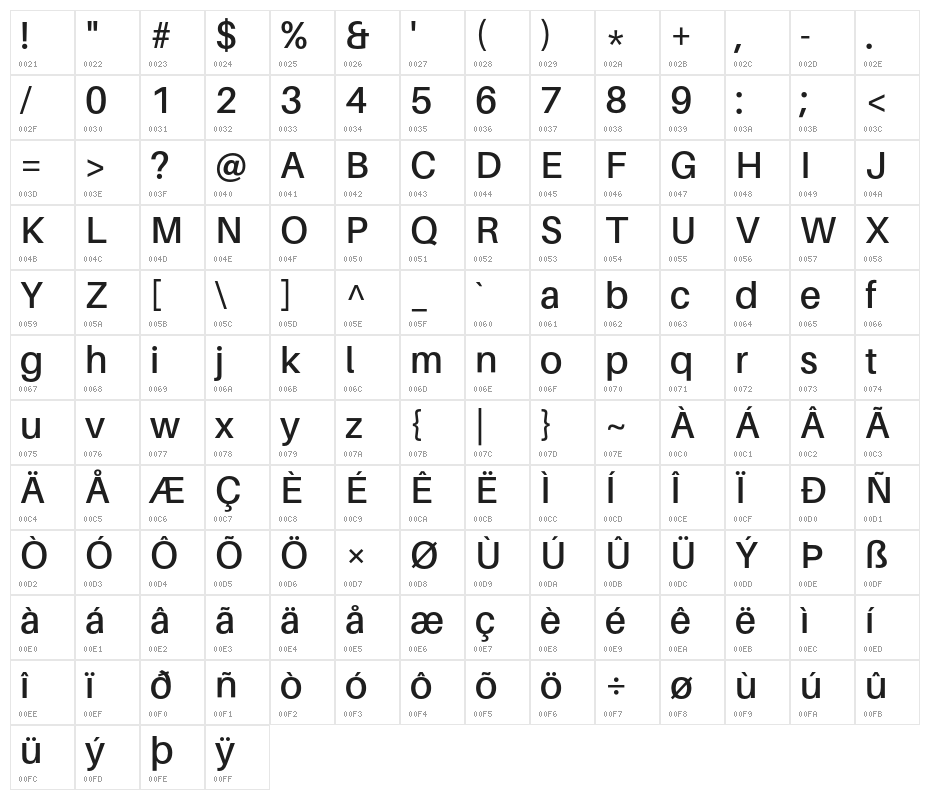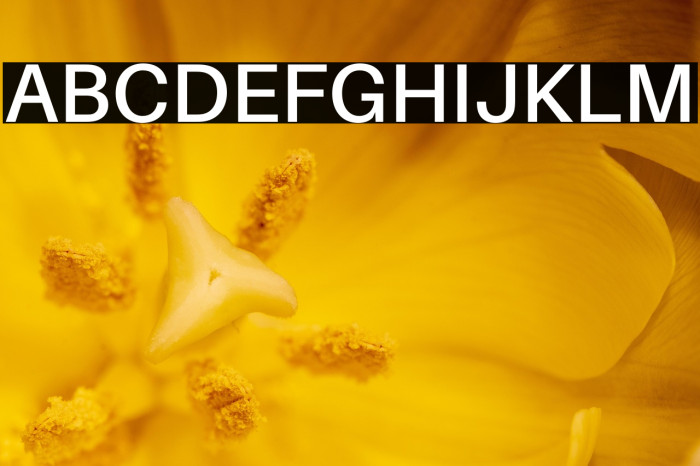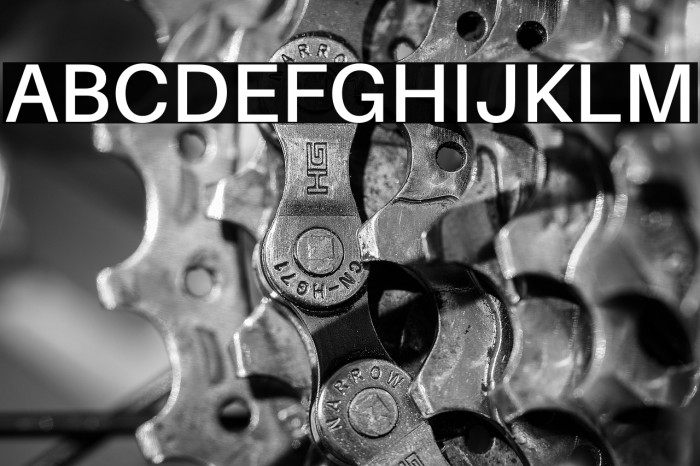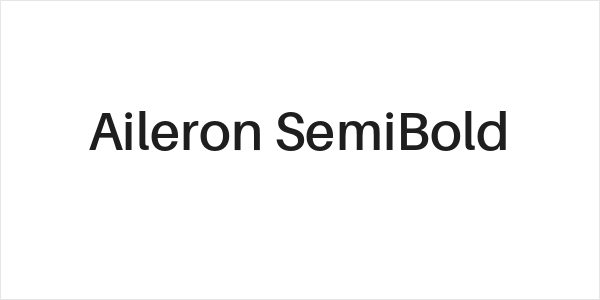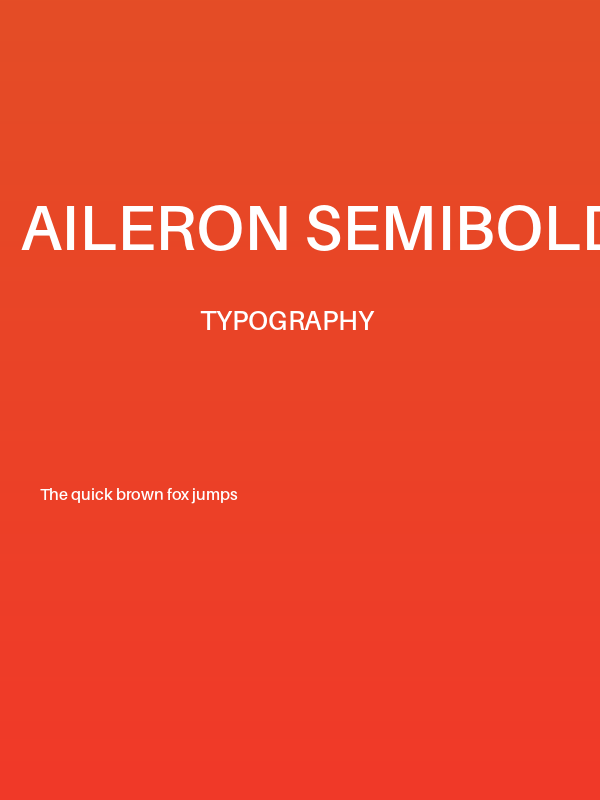
Aileron SemiBold Font
Aileron SemiBold Description
This font features a clean and modern sans-serif design with a semi-bold weight, offering a balanced and versatile appearance. The characters are well-proportioned with a uniform stroke width, providing a harmonious and legible text. The uppercase letters are bold and assertive, while the lowercase letters maintain a friendly and approachable feel. The numerals are clear and distinct, making them suitable for various applications. The special characters are well-integrated, ensuring consistency across different uses. Overall, this font exudes a contemporary and professional vibe, making it ideal for a wide range of design projects.
| Proposed Projects | Ideal for branding, web design, advertising, and editorial projects. |